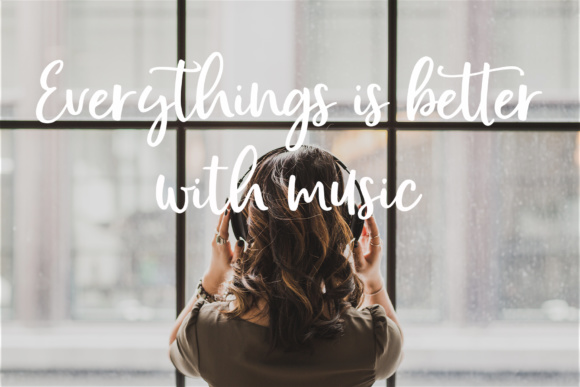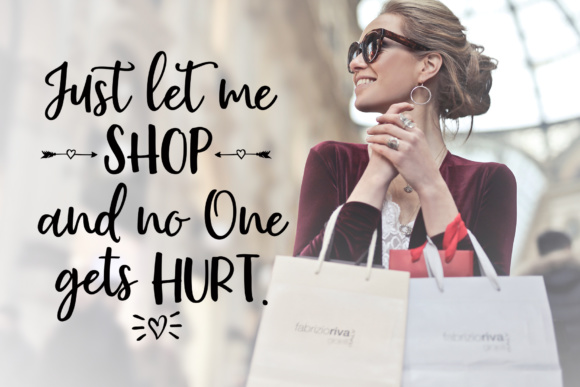
Introduction to Monstterday Script Font
Monstterday Script is a handwritten, stylish copperplate font.
Monstterday has a dancing baseline and will give your design a classic and elegant touch Monstterday can be used for various purposes such as headings, signatures, logos, wedding invitations, t-shirts, letterheads and much more.
Monstterday Script Font offers exceptional quality and versatility, making it a valuable addition to your design toolkit. Whether you’re creating for personal projects or commercial use, Monstterday Script Font delivers professional results.